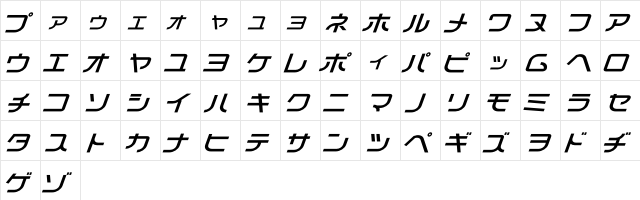
Lemonade Oblique
Design Context for Lemonade Typeface
Lemonade offers clean, dependable letterforms without strong stylistic allegiance, making it a practical choice for designers who need flexibility. The slanted form adds forward momentum and visual energy.
Pro Tip: Use Lemonade for emphasis, pull quotes, and subheadings where its slanted energy can add rhythm to the layout.